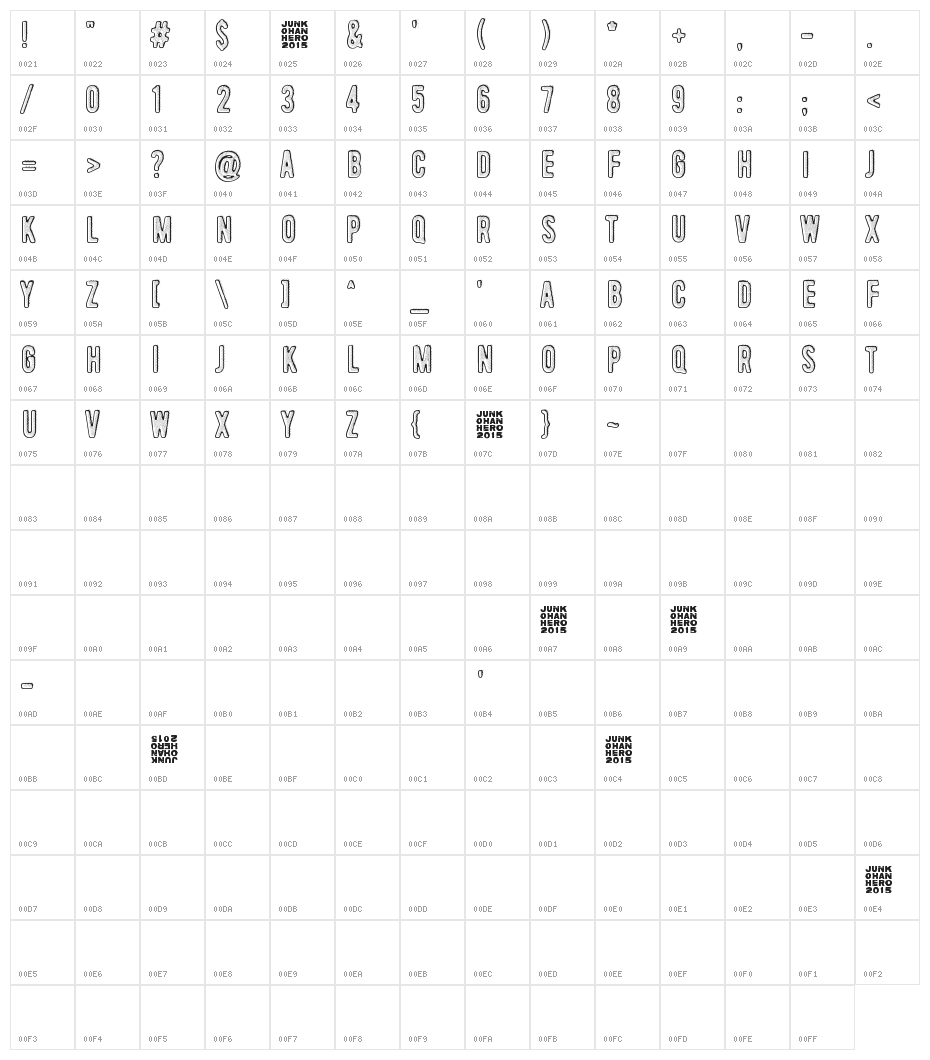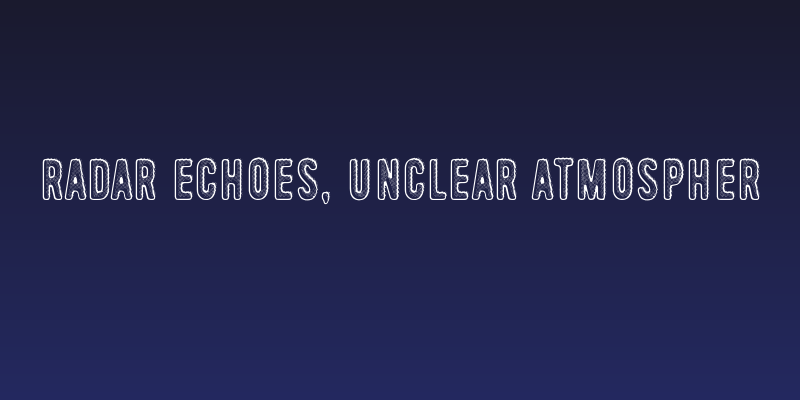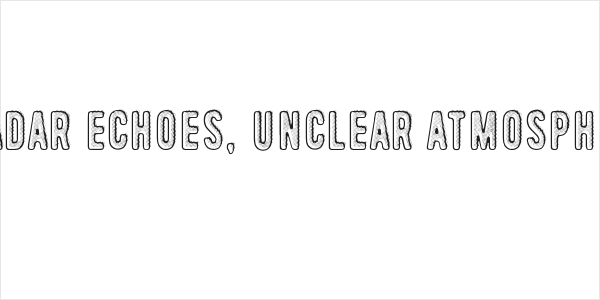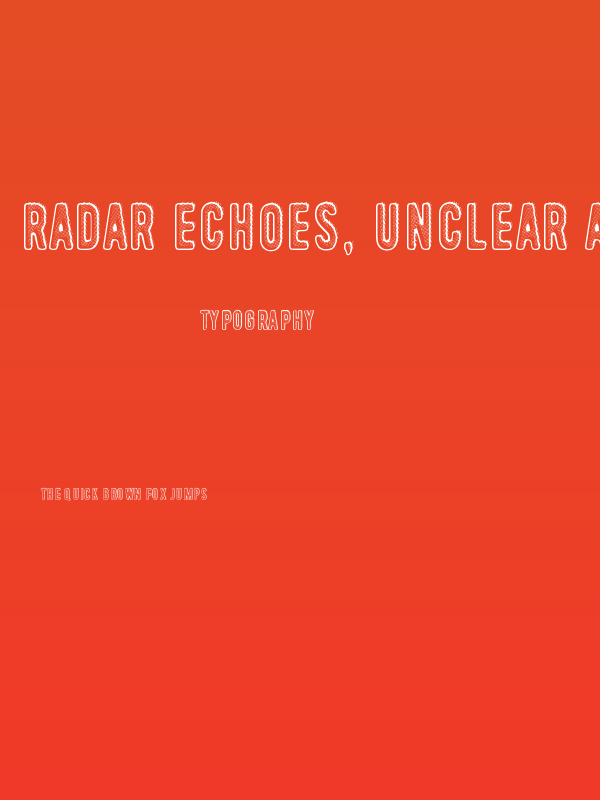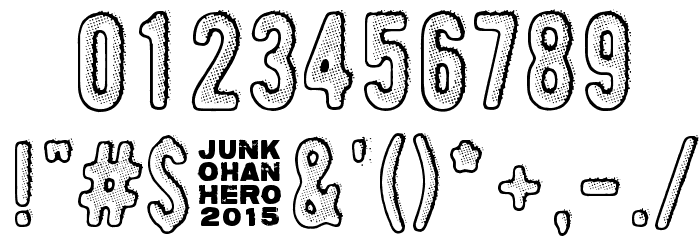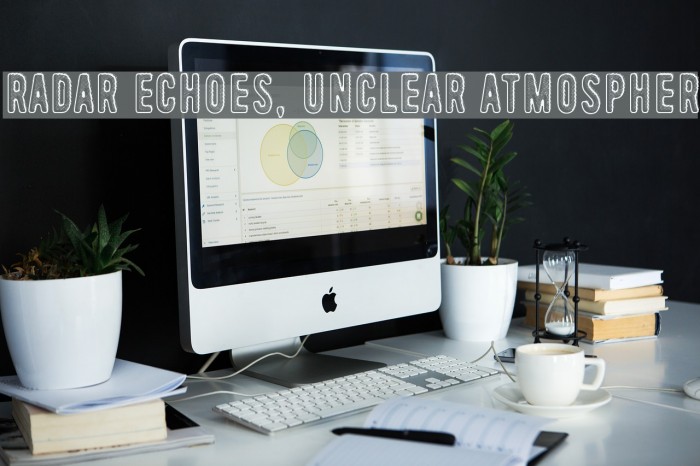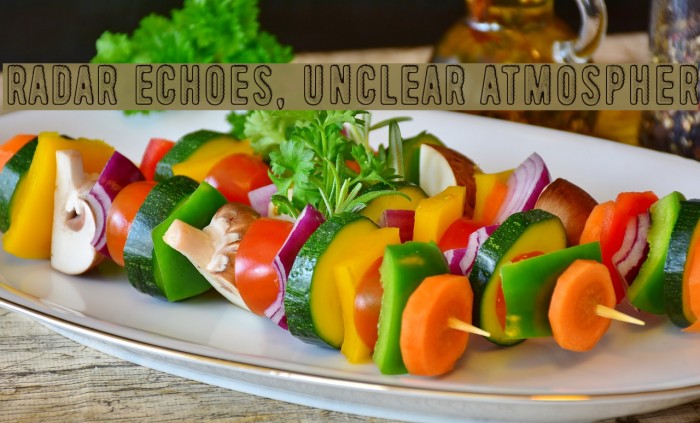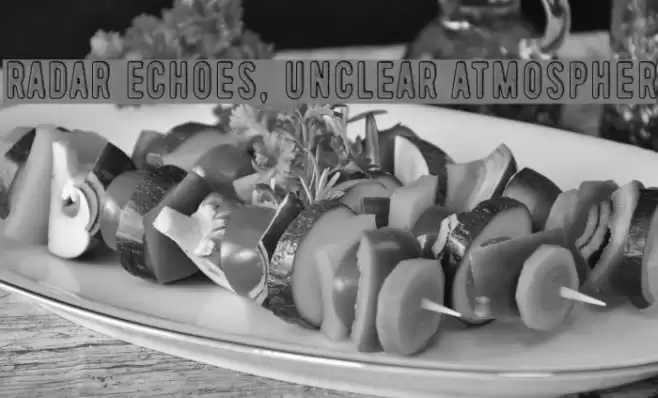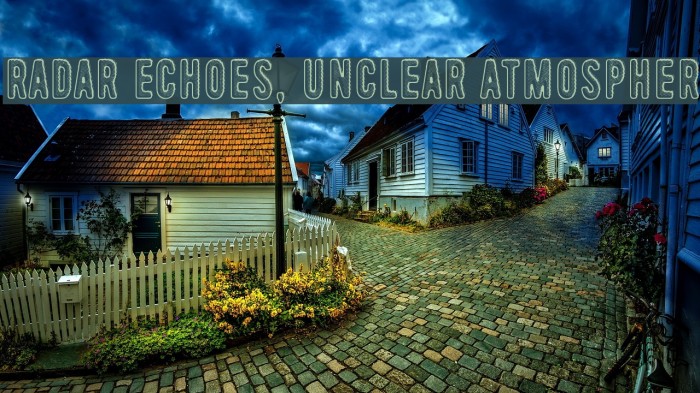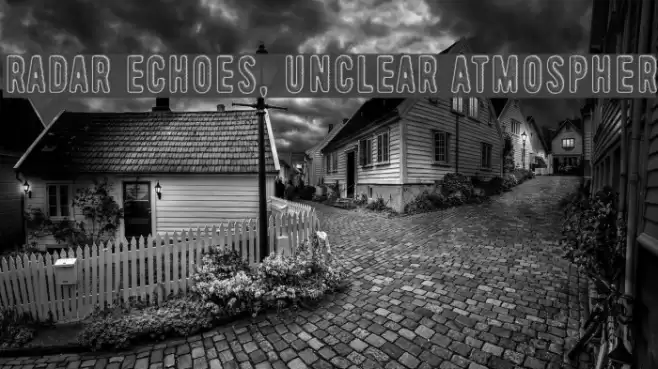
Radar Echoes, Unclear Atmospher Font
| Caz de utilizare | Headlines, Display |
| Proiecte propuse | Ideal for children's books, posters, creative branding, and any project needing a fun, engaging look. |